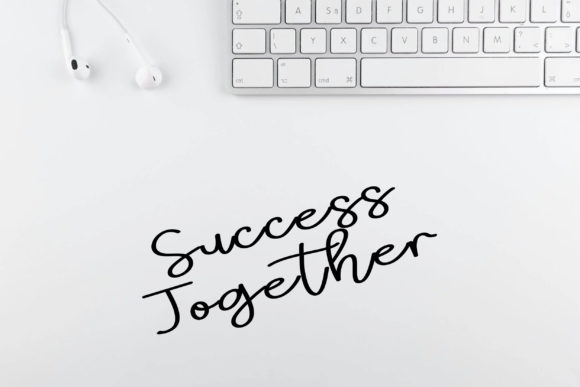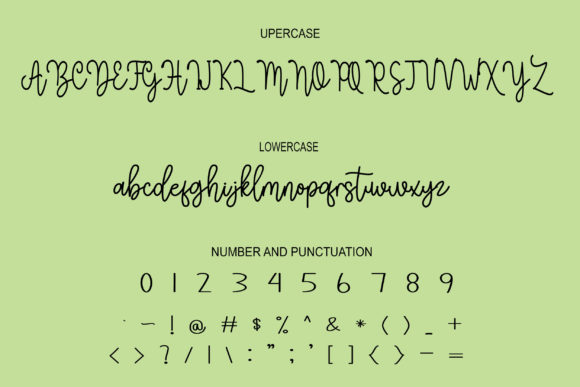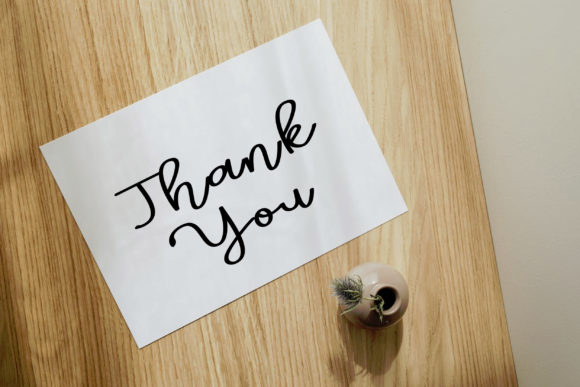
Introducing Good Mood Font: Elevate Your Designs with Elegance and Class
Are you tired of using the same old fonts in your designs? Do you want to add a touch of elegance and sophistication to your work? Look no further than Good Mood Font, a lovely and delicate script font that exudes refinement and poise. In this article, we’ll explore the features and benefits of Good Mood Font, and how it can help you take your designs to the next level.
What is Good Mood Font?
Good Mood Font is a beautiful script font that was particularly crafted for designers and crafters who need a fresh and elegant look for their projects. With its delicate strokes and refined lines, Good Mood Font is perfect for creating stunning designs that capture the essence of luxury and sophistication. Whether you’re working on a branding project, a wedding invitation, or a packaging design, Good Mood Font is sure to impress.
Key Features of Good Mood Font
So, what makes Good Mood Font so special? Here are some of its key features:
- Delicate Script Style: Good Mood Font features a beautiful script style that’s perfect for creating elegant and refined designs.
- Refined Lines and Strokes: The font’s lines and strokes are carefully crafted to create a smooth and sophisticated look.
- High-Quality Design: Good Mood Font is designed with high-quality and precision, ensuring that it looks great in any size or resolution.
- Easy to Read: Despite its delicate style, Good Mood Font is easy to read and understand, making it perfect for body text and headlines.
Benefits of Using Good Mood Font
So, why should you choose Good Mood Font for your designs? Here are some benefits of using this lovely font:
- Adds Elegance and Sophistication: Good Mood Font adds a touch of elegance and sophistication to any design, making it perfect for luxury brands and high-end projects.
- Versatile: Good Mood Font is versatile and can be used for a wide range of projects, from branding and advertising to packaging and wedding invitations.
- Unique and Creative: Good Mood Font is a unique and creative font that will help you stand out from the crowd and create designs that are truly memorable.
- Time-Saving: With Good Mood Font, you can create stunning designs in no time, saving you time and effort in the design process.
How to Use Good Mood Font
Using Good Mood Font is easy and straightforward. Here are some tips on how to get the most out of this lovely font:
- Pair it with Other Fonts: Good Mood Font looks great when paired with other fonts, such as sans-serif fonts or bold scripts.
- Use it for Headlines and Titles: Good Mood Font is perfect for headlines and titles, where its elegant style can really shine.
- Experiment with Colors and Textures: Good Mood Font looks great in a variety of colors and textures, so don’t be afraid to experiment and find the perfect combination for your design.